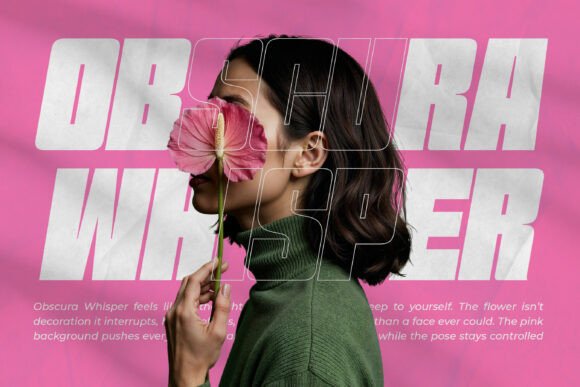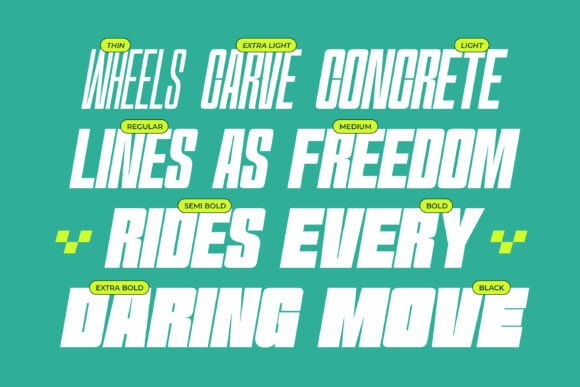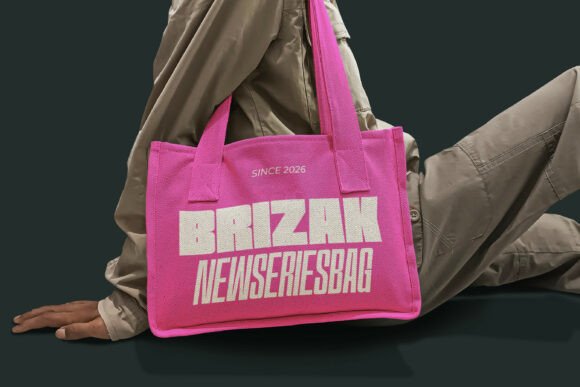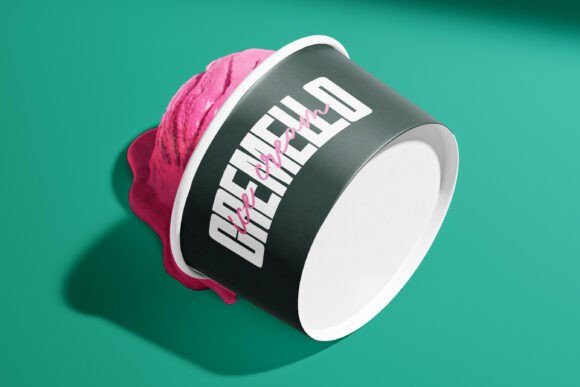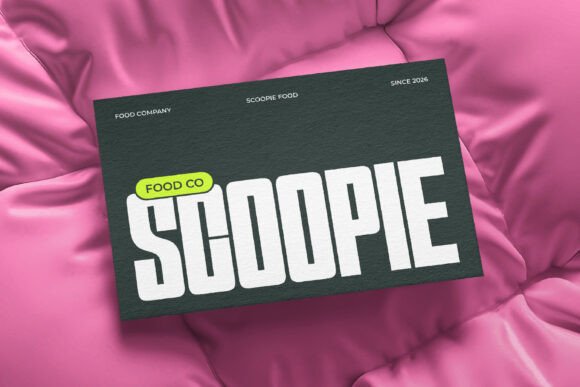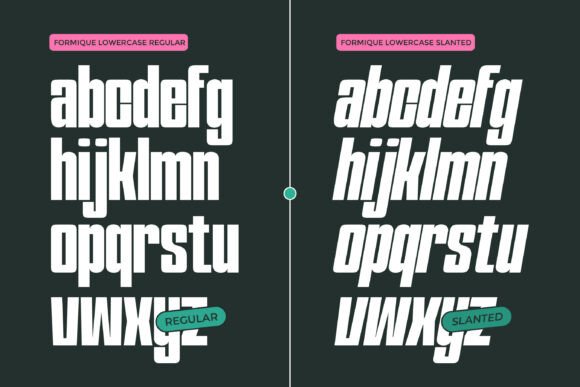
Introducing Formique Font: The Ultimate Display Font for Bold and Impactful Designs
In the world of typography, a font can make or break a design. When it comes to creating a strong visual presence, designers need a typeface that can deliver. That’s where Formique Font comes in – a modern display font designed to make a statement. With its wide, solid, and geometric letterforms, Formique is the perfect choice for designers who want to create modern, powerful, and standout visuals.
Key Features of Formique Font
Formique Font boasts an impressive range of features that make it an ideal choice for designers. Here are some of its key characteristics:
- Wide and Solid Letterforms: Formique’s letterforms are designed to be wide and solid, making them perfect for headlines, titles, and other display text.
- Geometric Style: The font features a geometric style that gives it a modern and sleek look.
- 18 Font Styles: Formique comes in 18 different font styles, including both regular and slanted versions, offering high versatility for a wide range of creative explorations.
- High Versatility: With its range of font styles, Formique can be used for everything from clean and structured layouts to dynamic and energetic compositions.
Perfect for Designers Who Want to Make a Statement
Formique Font is designed for designers who want to create bold and impactful visuals. Whether you’re working on a branding project, a website design, or a marketing campaign, Formique is the perfect choice. Its strong and geometric letterforms will help your design stand out from the crowd and leave a lasting impression on your audience.
Use Cases for Formique Font
Formique Font can be used in a variety of design projects, including:
- Branding and Logo Design: Use Formique to create a bold and memorable logo that will help your brand stand out.
- Website Design: Add a touch of modernity to your website with Formique’s sleek and geometric letterforms.
- Marketing and Advertising: Use Formique to create eye-catching headlines and titles that will grab the attention of your audience.
- Print Design: Formique is perfect for print design projects, such as brochures, flyers, and posters.
Why Choose Formique Font?
With so many fonts available, why choose Formique? Here are just a few reasons:
- Unique and Modern Design: Formique’s geometric style and wide letterforms make it a unique and modern addition to any design.
- Highly Versatile: With 18 font styles to choose from, Formique can be used for a wide range of design projects.
- Easy to Read: Despite its bold and geometric style, Formique is easy to read, even at small sizes.
In conclusion, Formique Font is a powerful and modern display font that is perfect for designers who want to create bold and impactful visuals. With its wide, solid, and geometric letterforms, 18 font styles, and high versatility, Formique is the perfect choice for a wide range of design projects. Whether you’re working on a branding project, a website design, or a marketing campaign, Formique is sure to help your design stand out from the crowd.